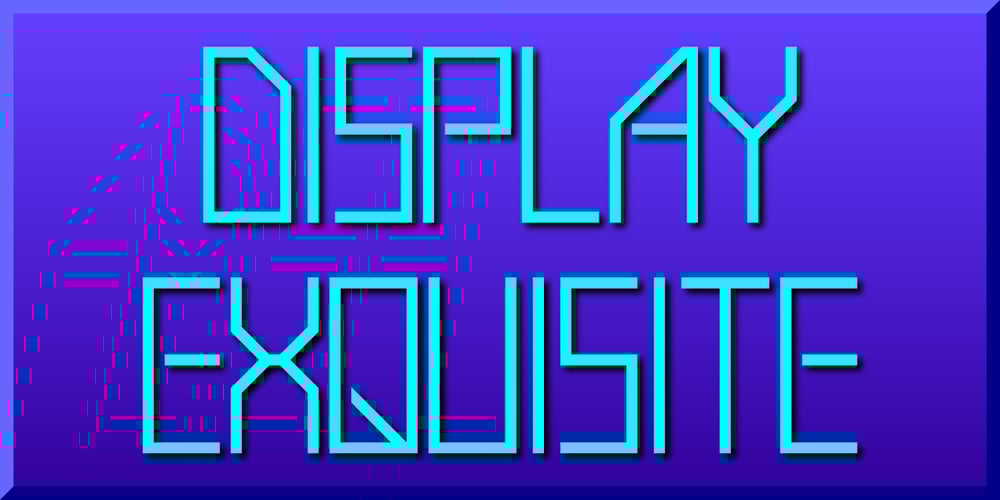
Display Exquisite
Display Exquisite font
Display Exquisite Font Family was designed by Gerald Gallo and published by Gerald Gallo. Display Exquisite contains 1 styles and family package options. Display Exquisite is a display font not intended for text use. It was designed specifically for display, headline, logotype, branding, and similar applications. In place of a lowercase there are small caps. There are also small numbers. Punctuation is limited.